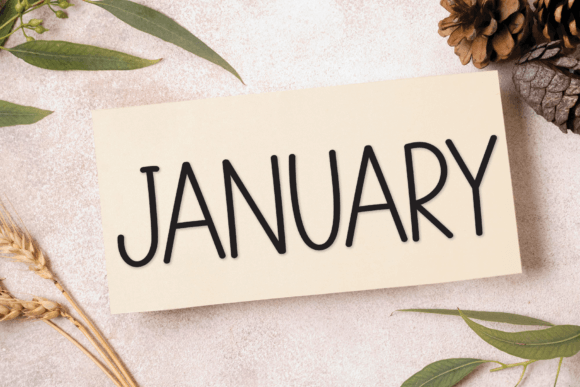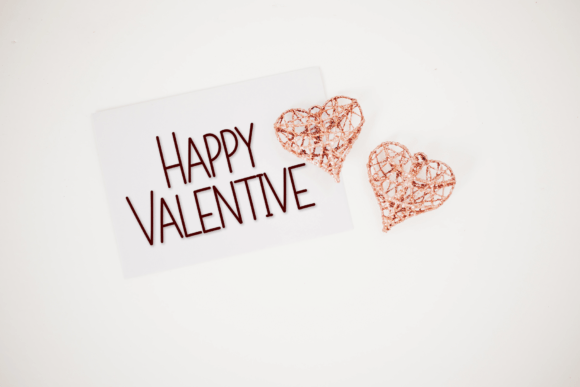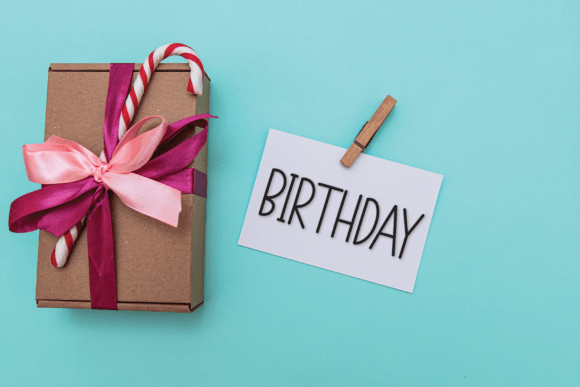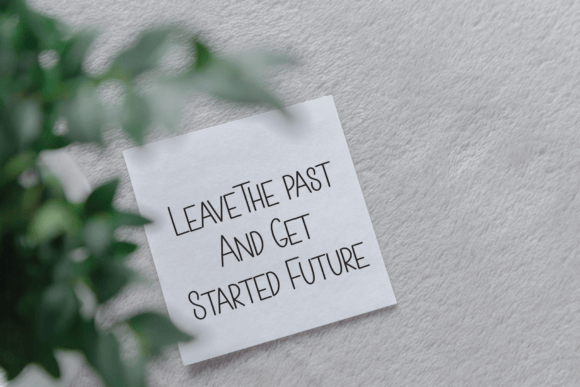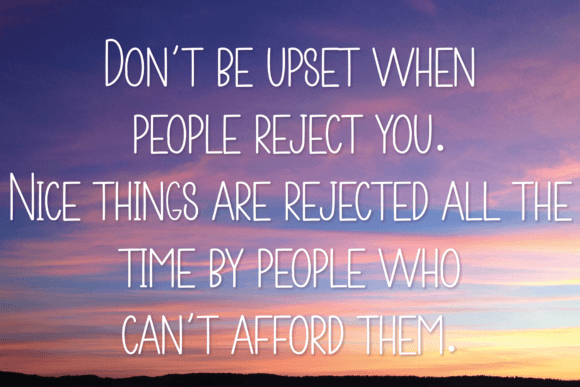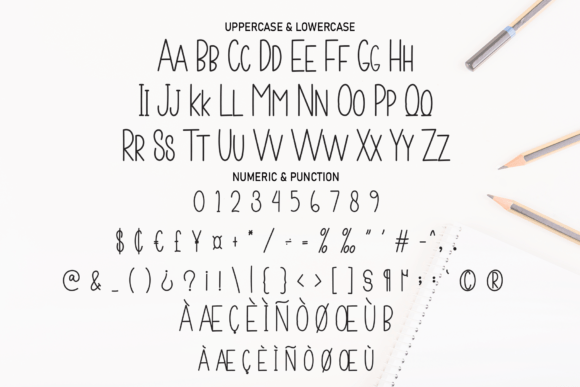
Have you ever found yourself rummaging through your craft supplies, searching for the perfect combination of markers and colored pencils to create the perfect handwritten effect? We’ve all been there, trying to recreate that one special look that brings our designs to life. Whether you’re a seasoned designer or a crafting enthusiast, there’s one font that’s about to become your new BFF: Books and Pens Font.
This cool and casual handwritten font is perfect for any occasion, from making greeting cards to designing presentations. Its versatility and charm make it an invaluable asset for designers looking to add a personal touch to their work. With Books and Pens Font, you can say goodbye to bland designs and hello to a world of creativity and self-expression.
Books and Pens Font Key Features
- Font Family: Books and Pens is a handwritten font family designed for creative purposes.
- Unique Characteristics: Features a unique, hand-drawn style with subtle imperfections, giving it a personal and creative touch.
- Language Support: Supports a wide range of languages, including Latin, Greek, and Cyrillic alphabets.
- Number of Glyphs: Includes over 500 glyphs, including ligatures, swashes, and ornaments for added versatility.
- Font Weight: Available in multiple weights, from Light to Bold, to accommodate various design needs.
Books and Pens Font Review
First off, I really love the playful, handwritten feel of this font. ✨ The loops and flourishes give it a personal touch that’s perfect for projects like children’s books, invitations, or even social media graphics. The font is also highly legible, even at smaller sizes, which is a huge plus for designers who need to scale their work.
However, there are some limitations to keep in mind. ⚠️ The font can feel a bit overused, and its casual nature might not be suitable for more formal or professional projects. Additionally, some of the characters, like the “e” and “a”, can be a bit tricky to read at certain angles, which might lead to issues with text alignment.
Another thing to note is that the font’s “handwritten” feel can sometimes feel a bit too imperfect, which might not be desirable for projects where precision is key.
In terms of overall impression, I’d say that Books and Pens is a solid choice for designers who need a friendly, approachable font for their projects. While it may not be perfect for every use case, it’s definitely worth considering for the right projects.
- Playful, handwritten feel
- Highly legible
- Perfect for children’s books, invitations, and social media graphics
- Can feel a bit overused
- May not be suitable for formal or professional projects
- Some characters may be tricky to read at certain angles
Books and Pens Font is ideal for:
- Education and learning materials.
- Children’s books and publications.
- Handwritten-style text effects.
Remember to experiment with different font sizes, styles, and colors to get the most out of this unique font.
The recommended line height for the Books and Pens Font is 1.2 to 1.5 times the font size. This will provide sufficient space between lines of text and maintain the font’s readability.